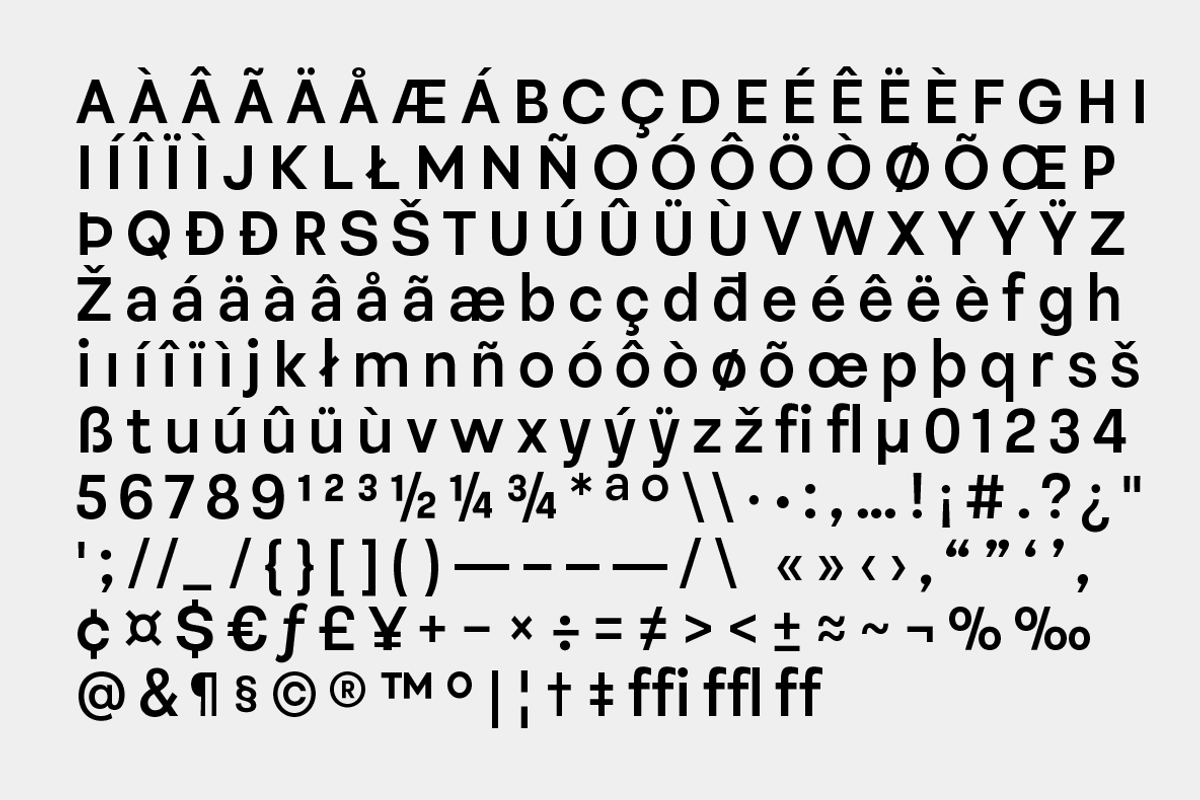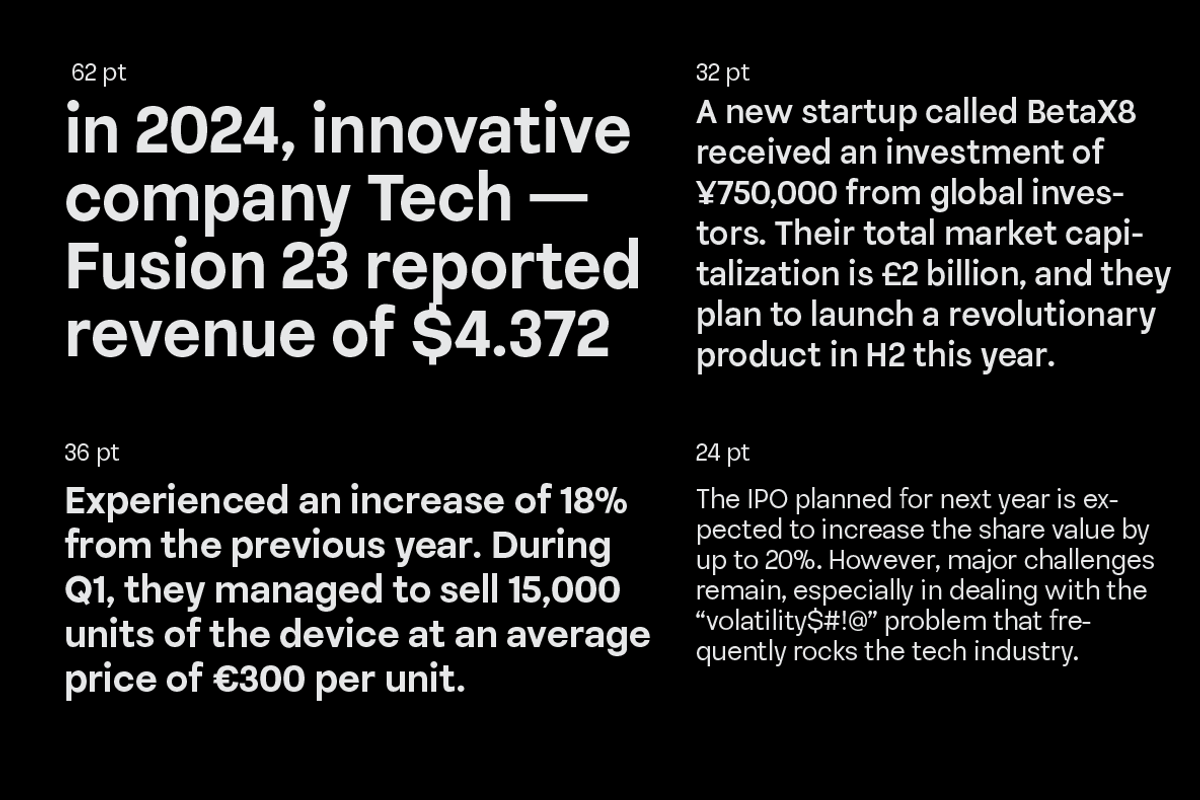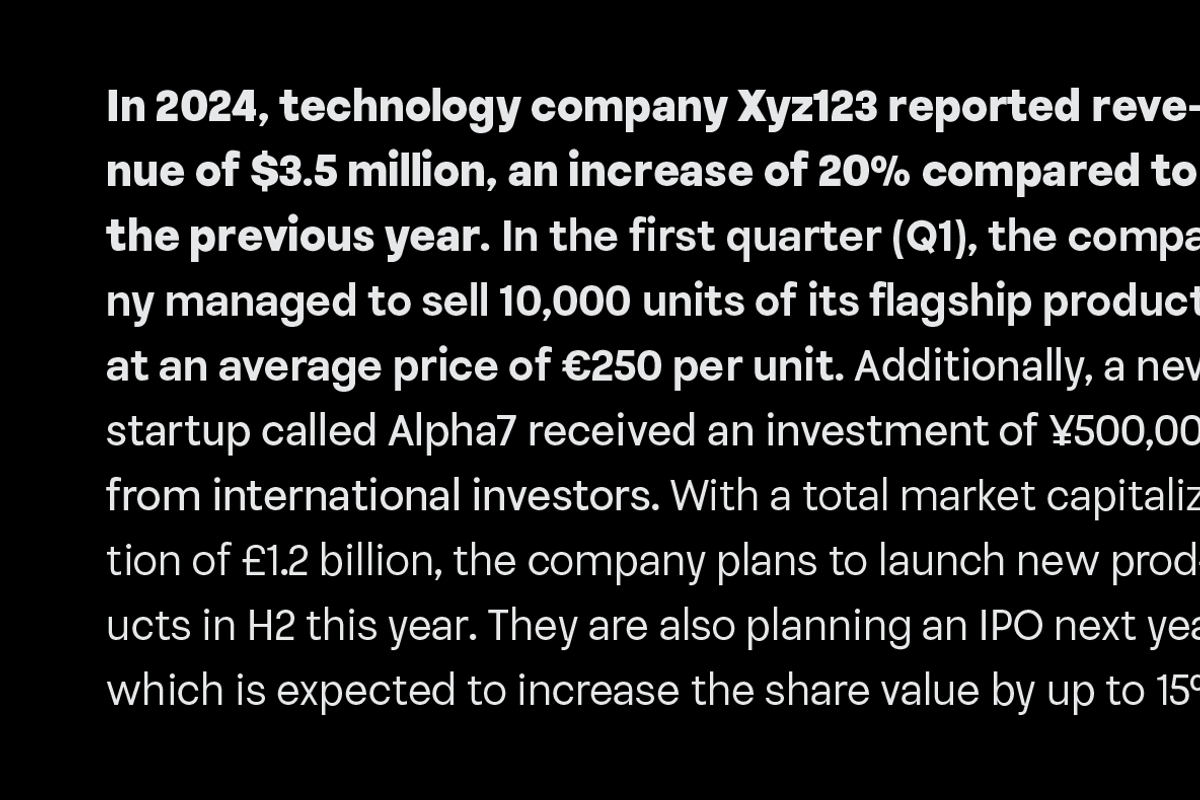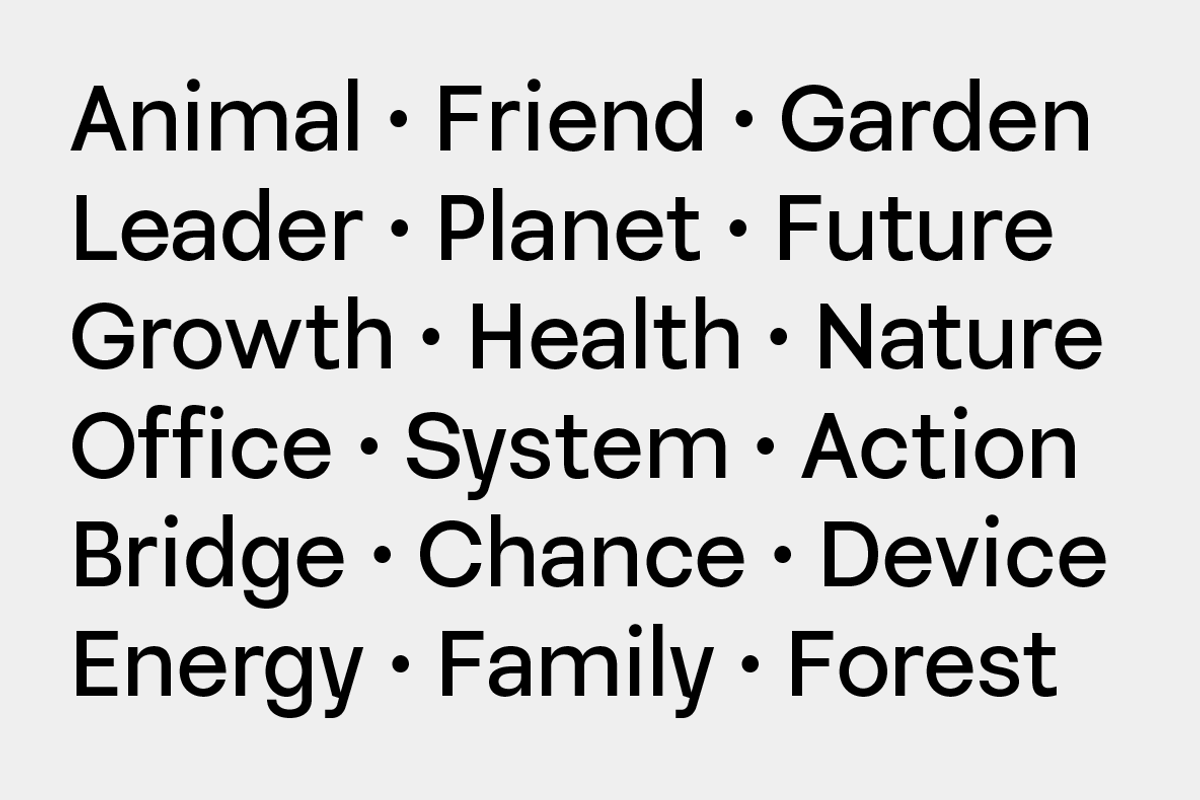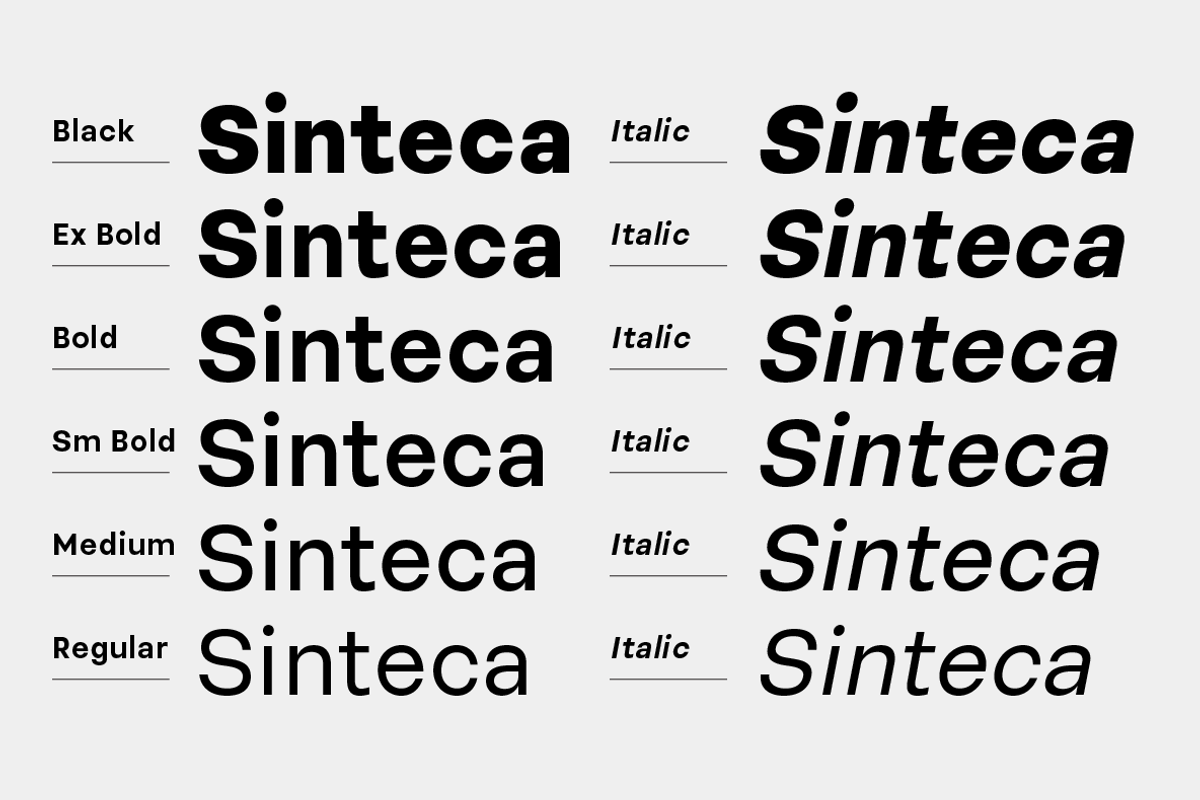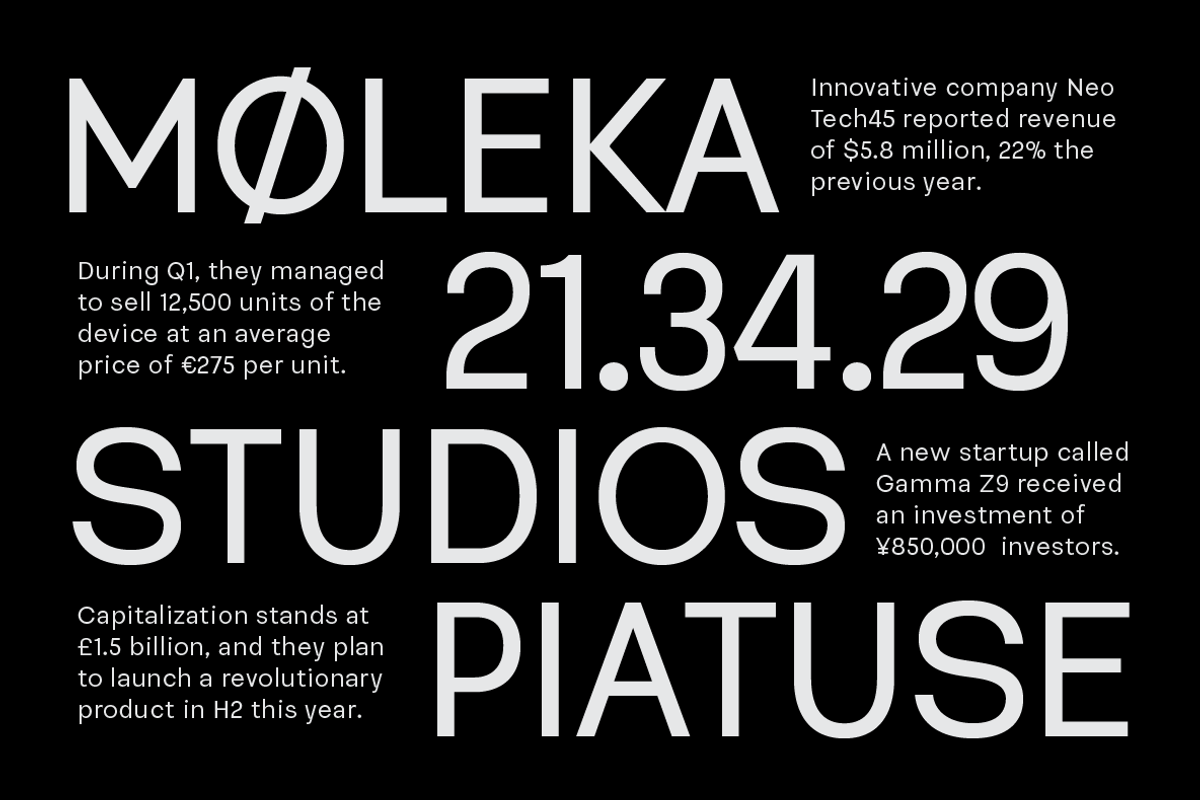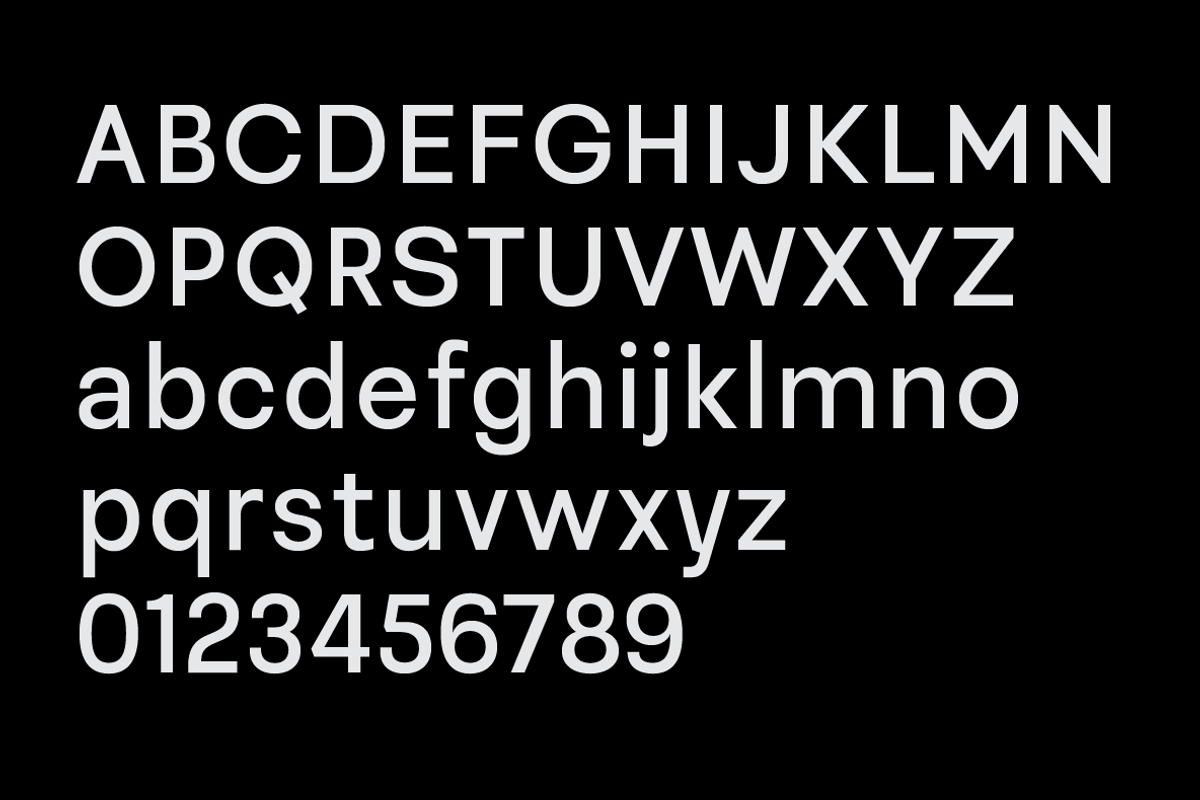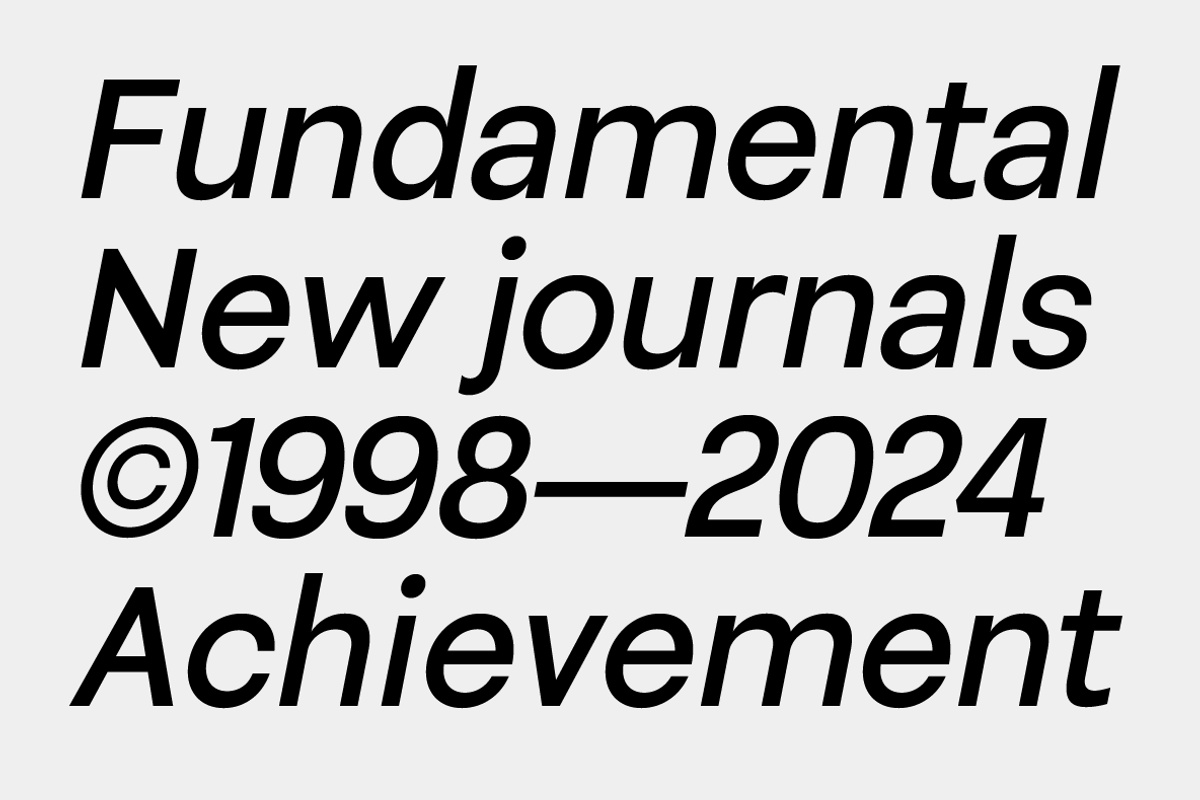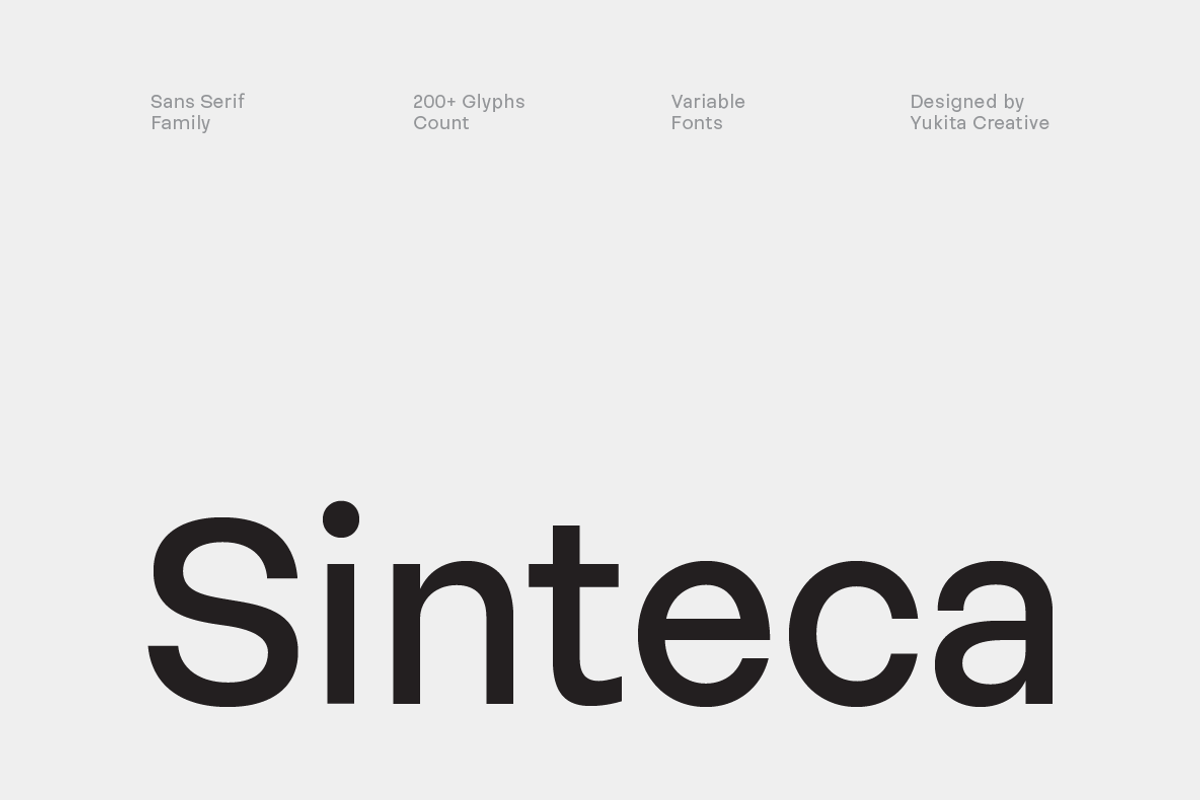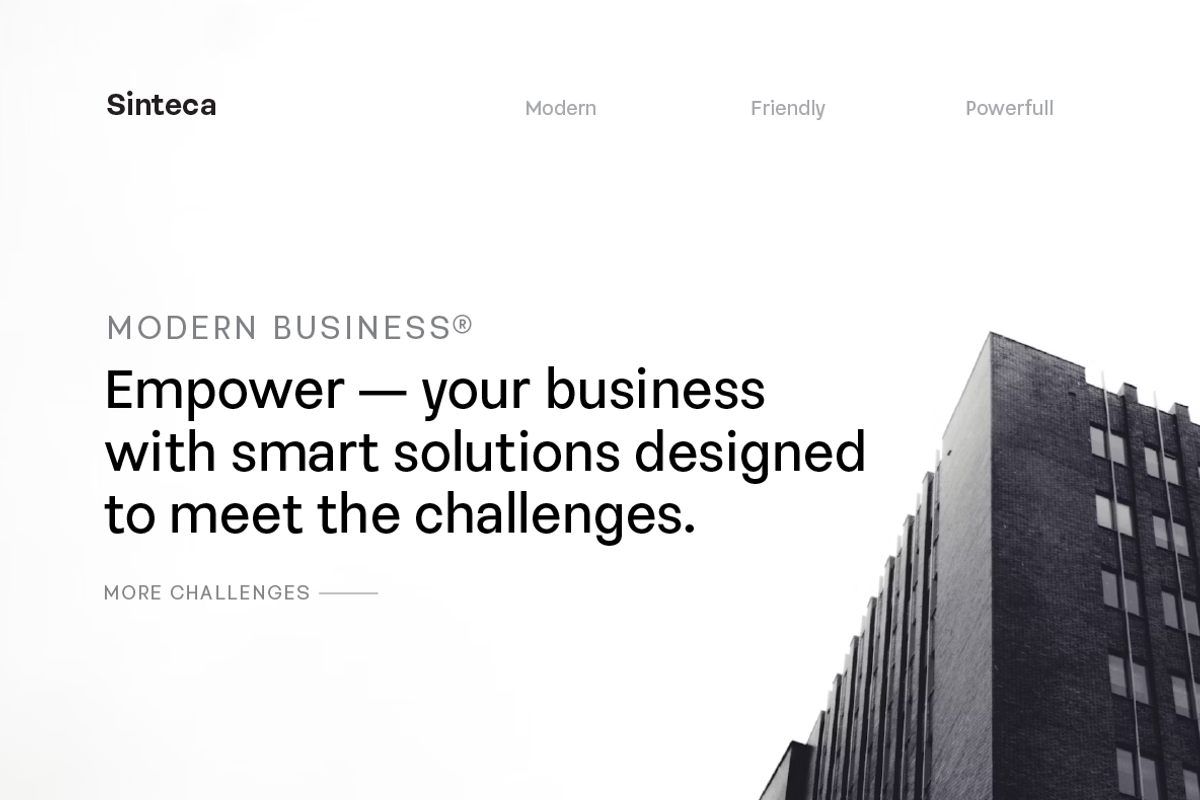
Sinteca Sans Serif
Sinteca Sans Serif Modern is a font designed with contemporary beauty and readability as top priorities. This font offers great flexibility with 12 thickness options, from Regular to Black, making it the perfect choice for a variety of design projects.
Feature:
- Modern and Clean Design
- Easy to Read
- 12 Various Weights
- Versatility
- High quality
Why Choose Sinteca Sans Serif Modern?
- Professional and Elegant: Provides a professional look with a touch of elegance.
- Flexibility: Makes it easy to create visual hierarchies with 12 weights.